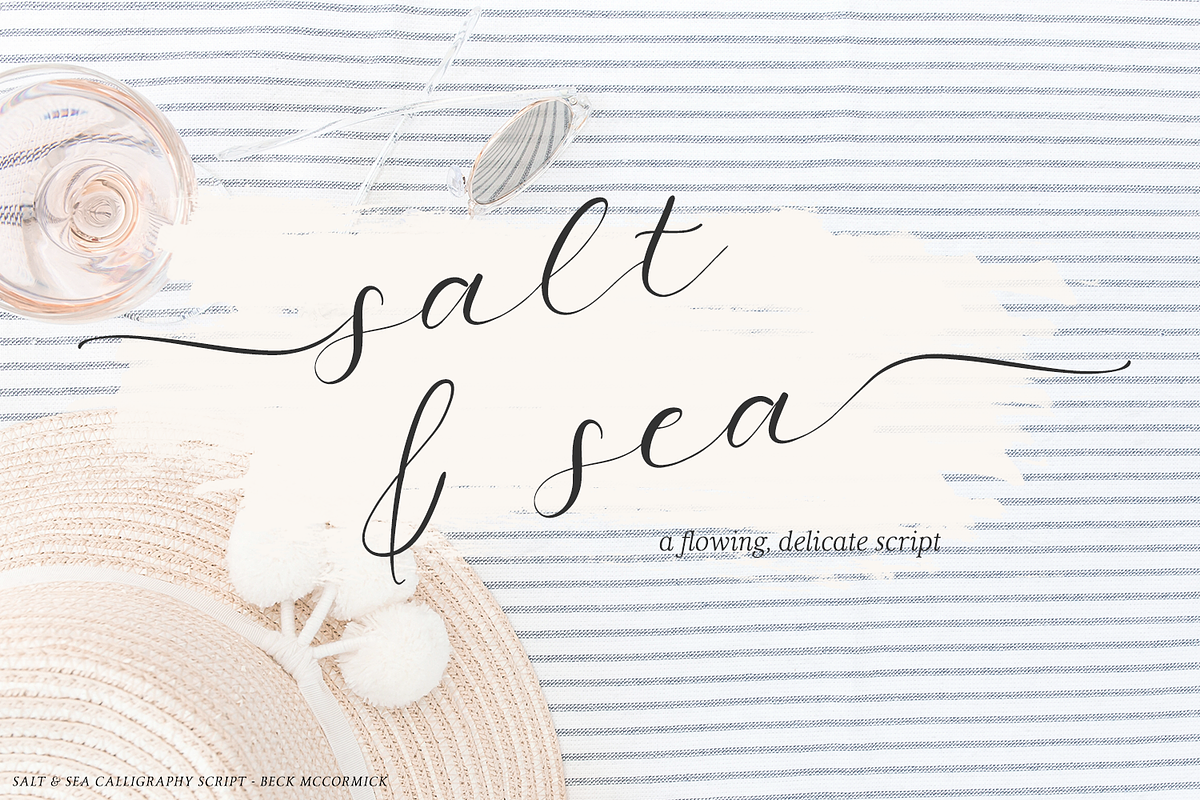
The Salt and Sea Calligraphy Font Free Download is a stunning script font that combines elegance with a natural, flowing style. With its delicate curves and beautiful letterforms, this font is perfect for creating sophisticated invitations, logos, greeting cards, and branding materials. The handwritten calligraphy style gives it a personal, artistic touch, making it ideal for projects that require a refined and graceful look. Please note, for commercial use, a license purchase is required. However, you can easily download the Salt and Sea Calligraphy Font Free Download for free for personal use and explore its beauty in your designs. Whether you're working on wedding invitations, business branding, or creative projects, this font will add an elegant and timeless flair to your typography. Download the Salt and Sea Calligraphy Font Free Download today and elevate your designs with its elegant calligraphic charm.